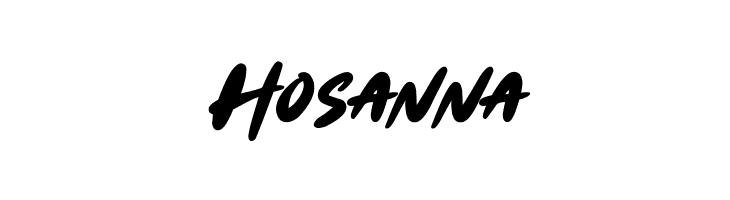
( Fonts by João Pereira )
A playful, hand-drawn font with rounded, irregular shapes and a casual vibe.
A playful, handwritten font with a casual and friendly appearance.
( Sabrina Schleiger - www.sabrinaschleiger.com )
A playful, handwritten font with irregular strokes and a casual style.
( JBFoundry - Jean Boyault - jean.boyault.pagesperso-orange.fr/ )
An ultra-thin, elongated font with a whimsical, modern style.
( Chelsea Muchantef - www.electricbang.com )
A chaotic, scribble-like font perfect for horror themes.
( Fonts by JSH creates )
( Addax Designs - www.nt-p.net/adx/index.html )
A modern, geometric font with rounded edges and a sleek, minimalistic design.
A casual, handwritten font with a playful and approachable style.
( Cheryl Killian - www.whimsicalinklings.com )
A playful, dotted font with a whimsical, hand-drawn style.
( Gregoryfonts - www.geocities.com/soho/coffeehouse/9609/fonts/fonts.html )
A bold, geometric font with a futuristic and digital aesthetic.
( Gregoryfonts - www.geocities.com/soho/coffeehouse/9609/fonts/fonts.html )
A geometric, futuristic font with a grid-like, angular design.
( Fonts by Ben Runneboom )
A playful, hand-drawn font with a whimsical and informal style.
A dynamic, cursive script font with bold, sweeping strokes and elegant curves.